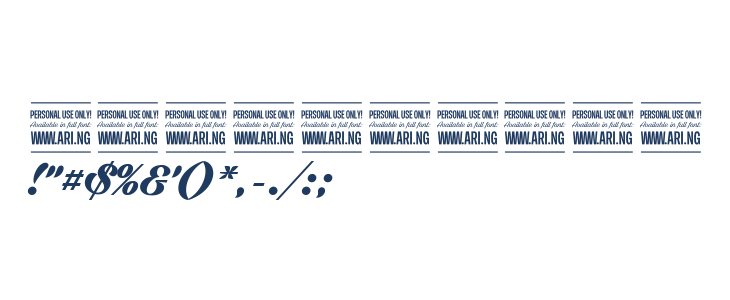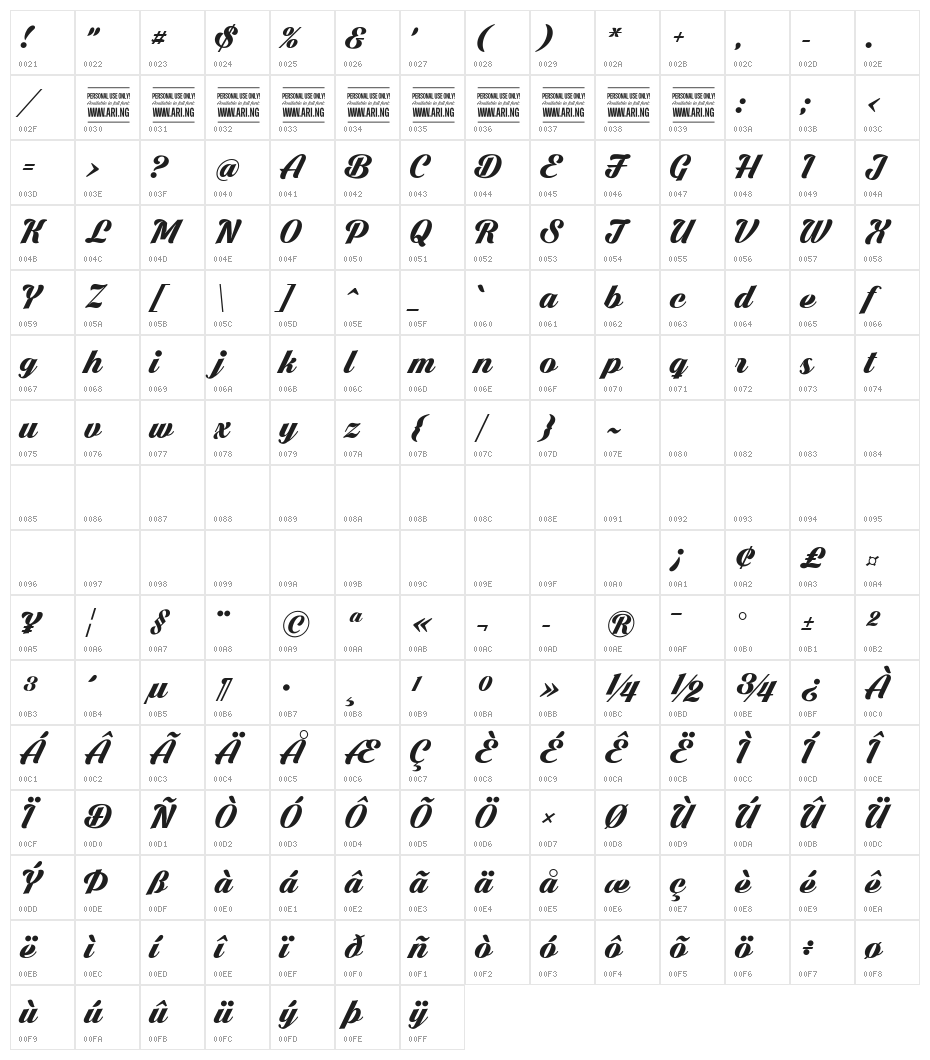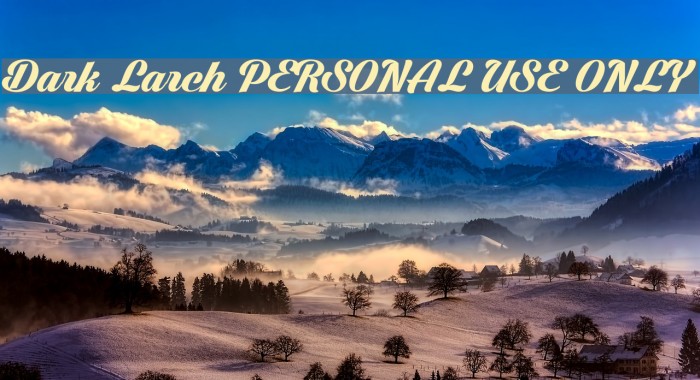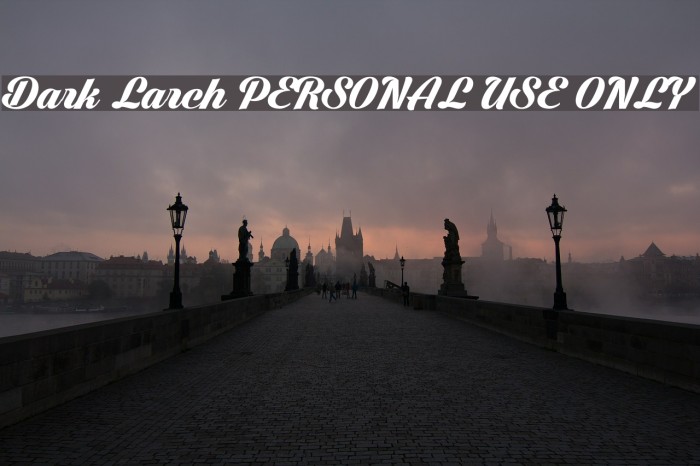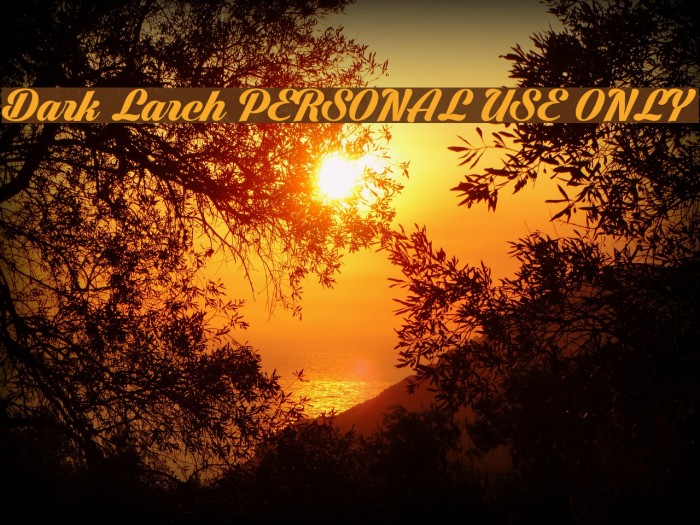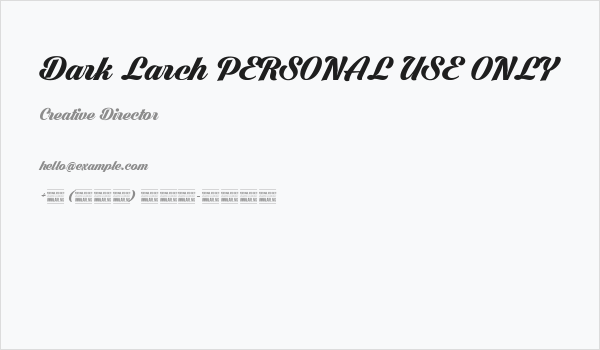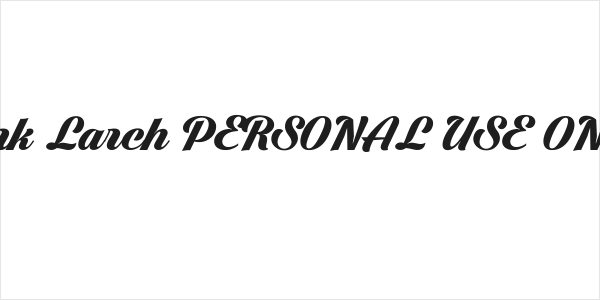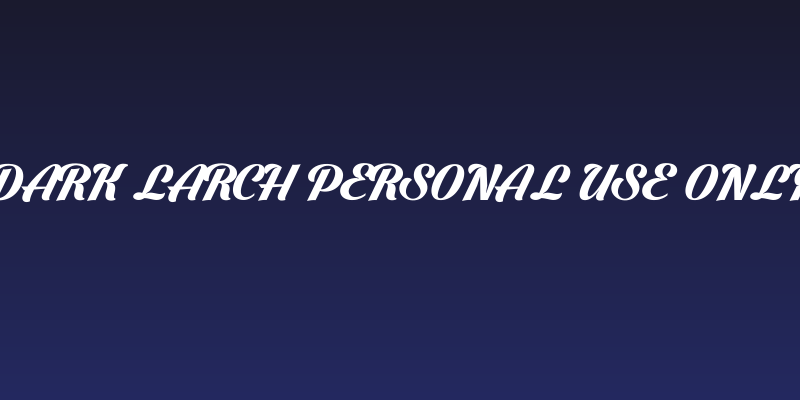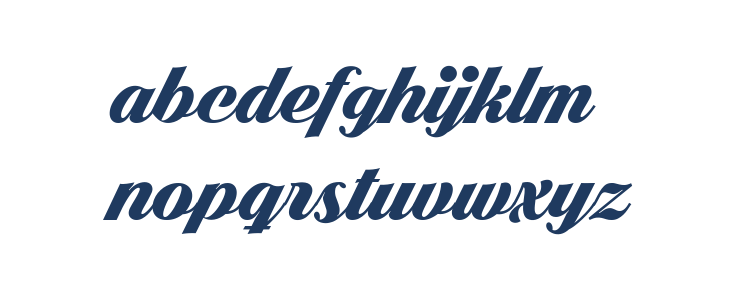
Dark Larch PERSONAL USE ONLY Font
Dark Larch PERSONAL USE ONLY Description
This font features a bold and dynamic script style with a strong presence. The characters are elegantly slanted, giving a sense of motion and fluidity. The uppercase letters are particularly striking, with sweeping curves and sharp edges that create a dramatic effect. The lowercase letters maintain a consistent flow, complementing the uppercase with their rounded forms and smooth connections. The numerals and special characters are designed to match the overall aesthetic, ensuring a cohesive look across all text. This font is ideal for making a statement, with its high contrast and bold weight capturing attention effortlessly.
| Proposed Projects | Ideal for branding, logos, headlines, and invitations where a strong, stylish impact is desired. |